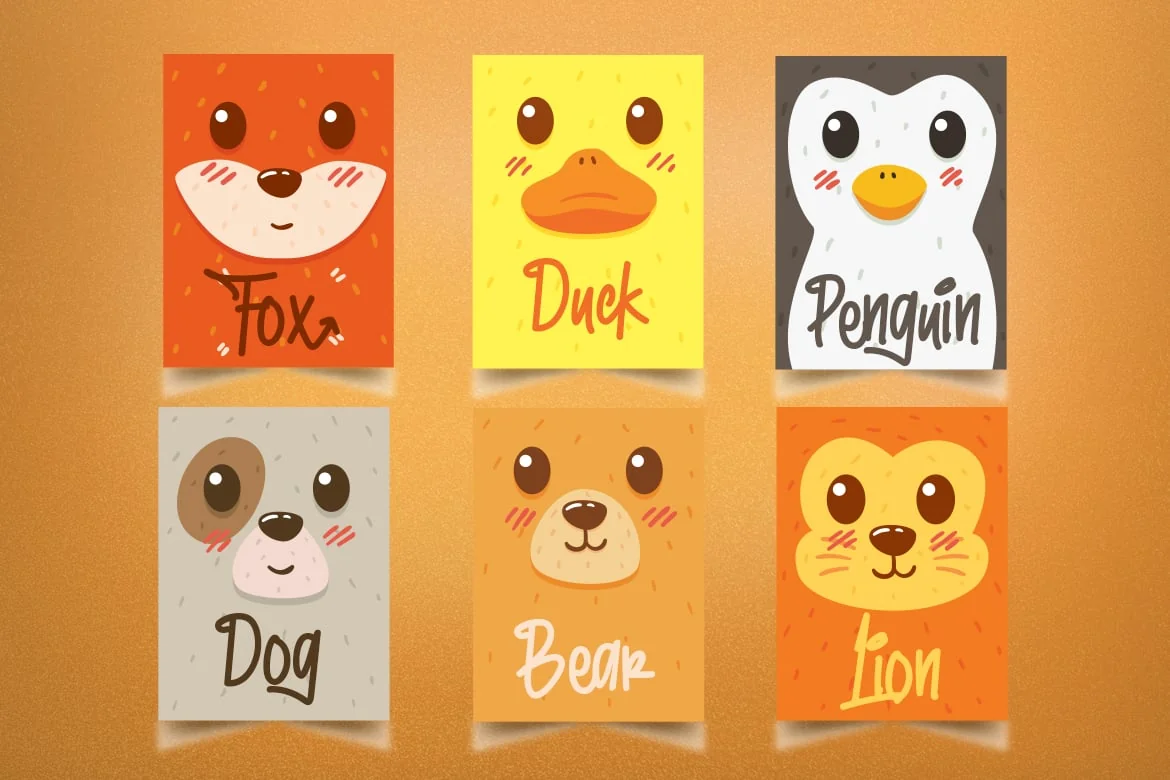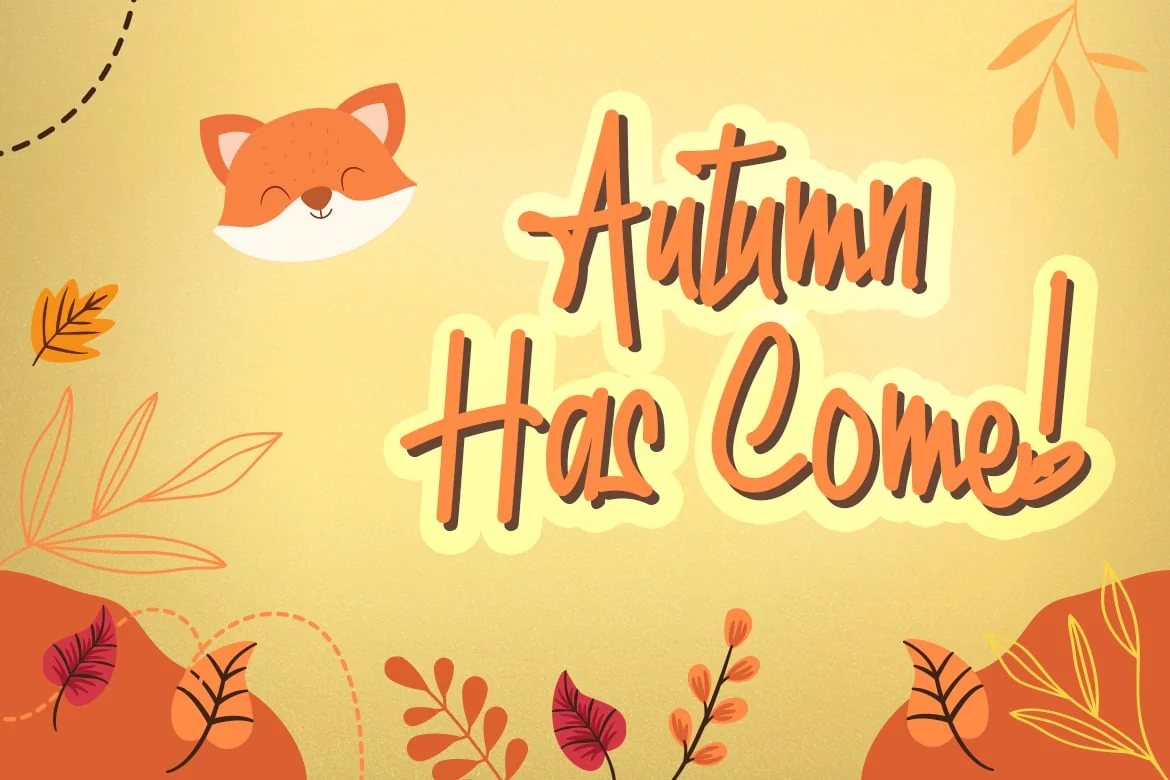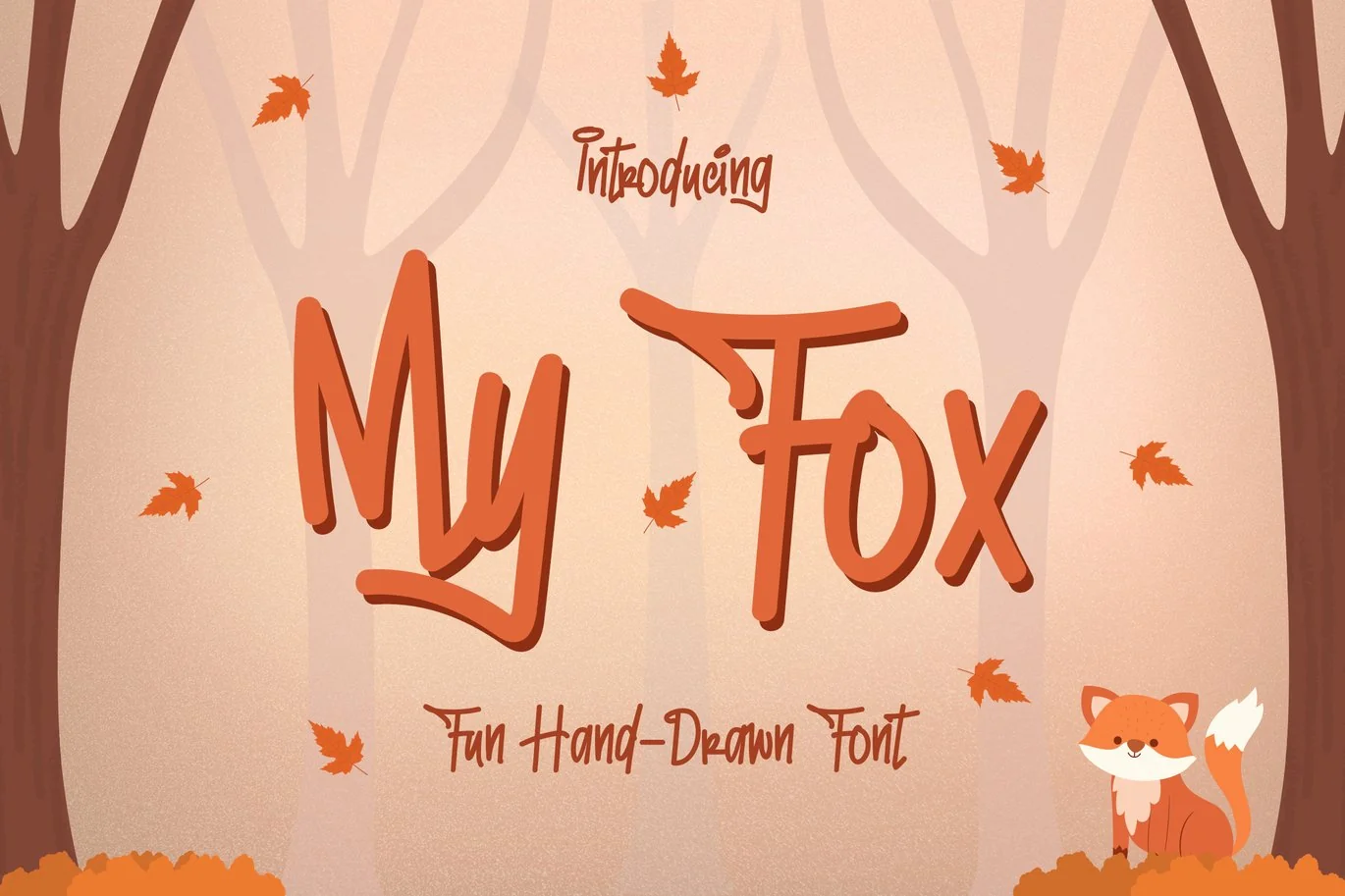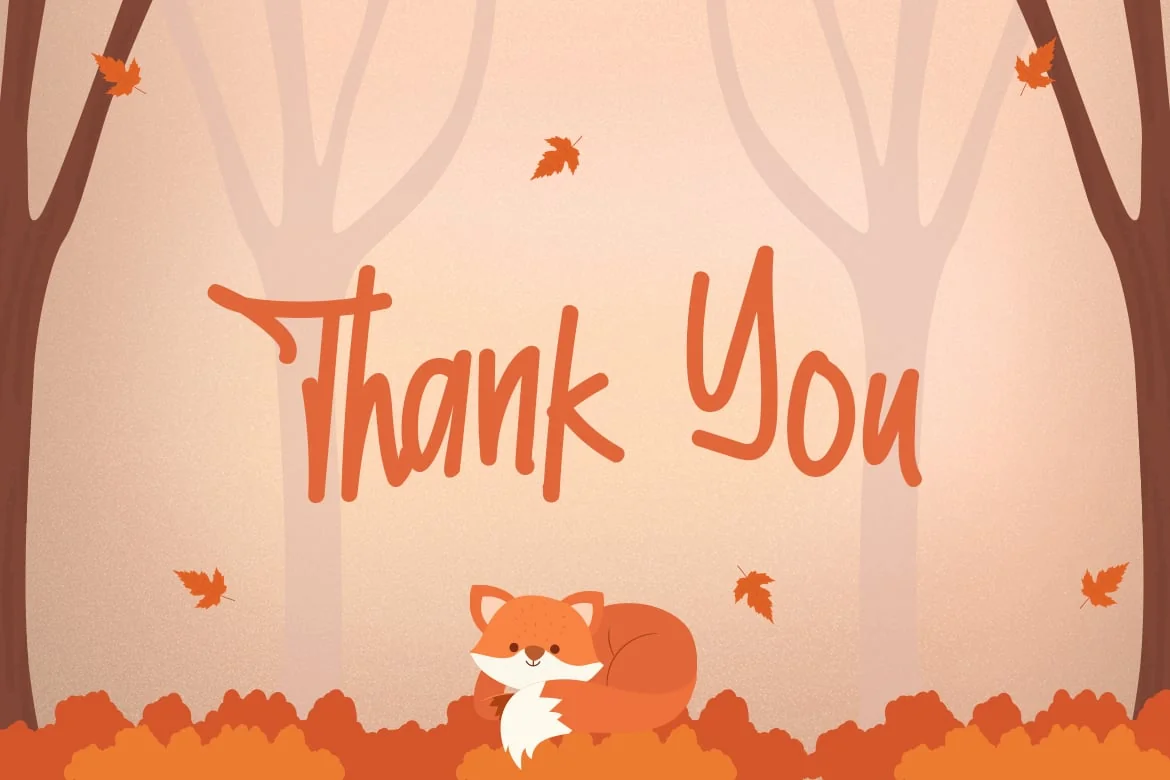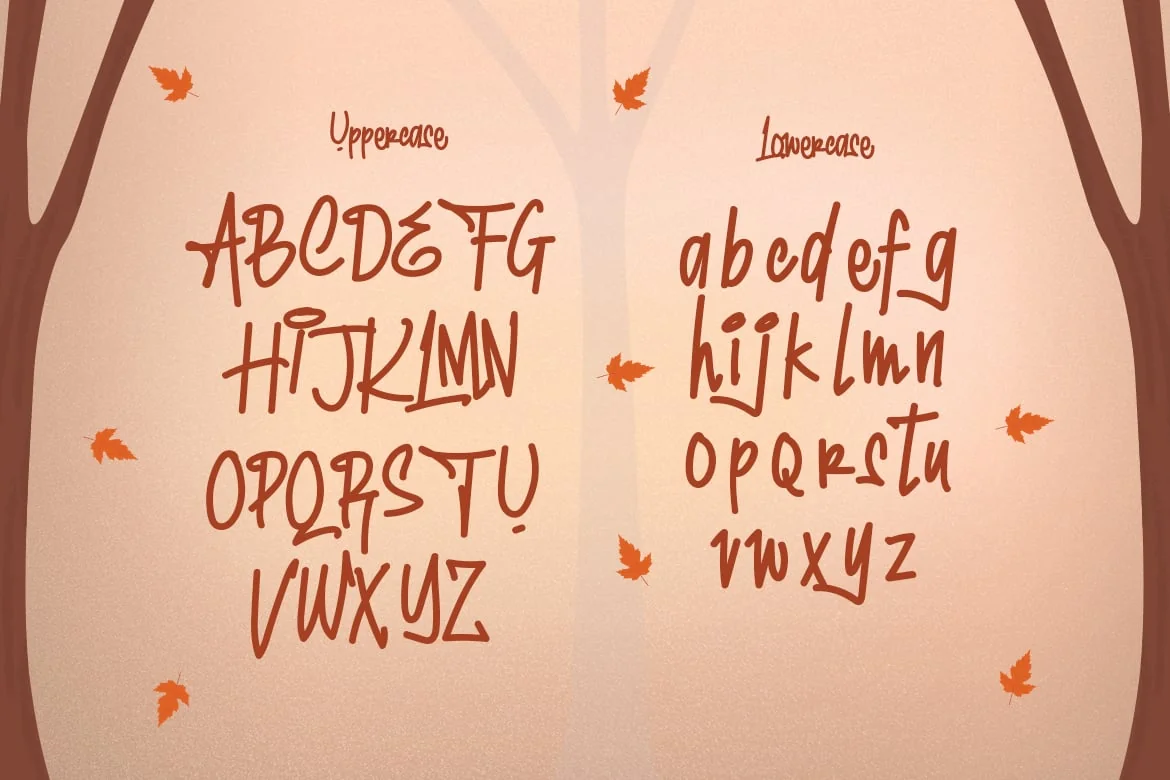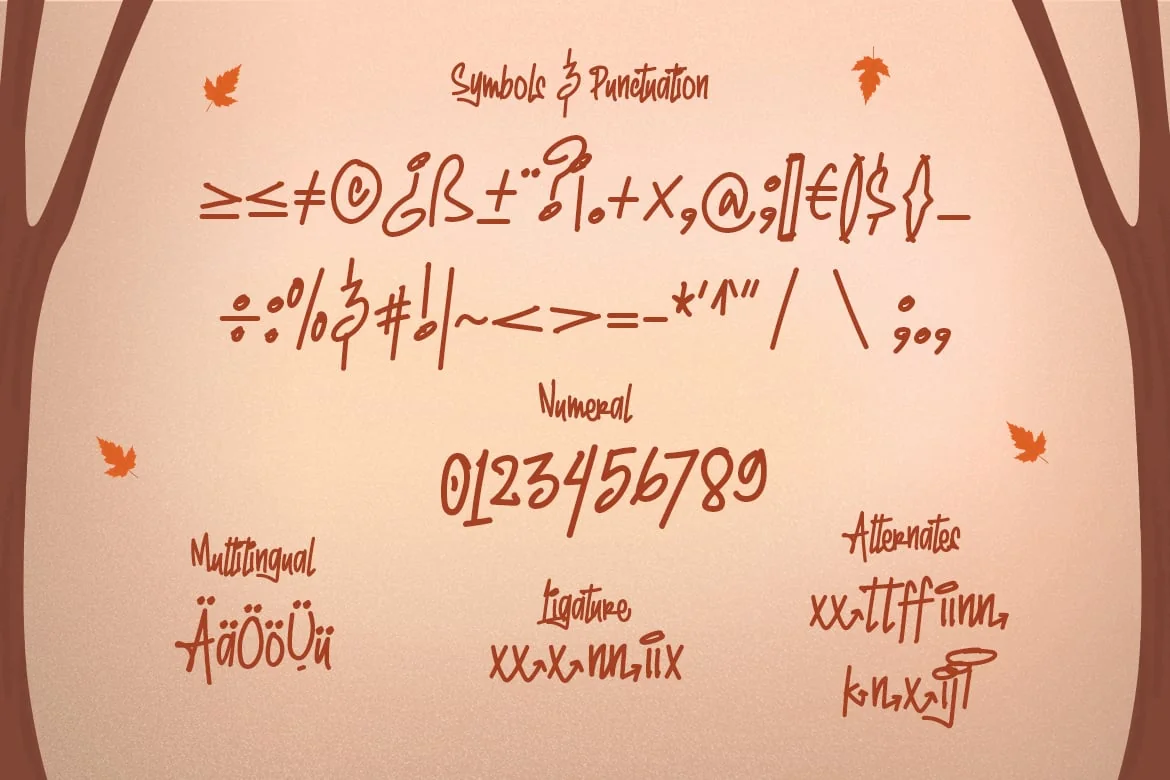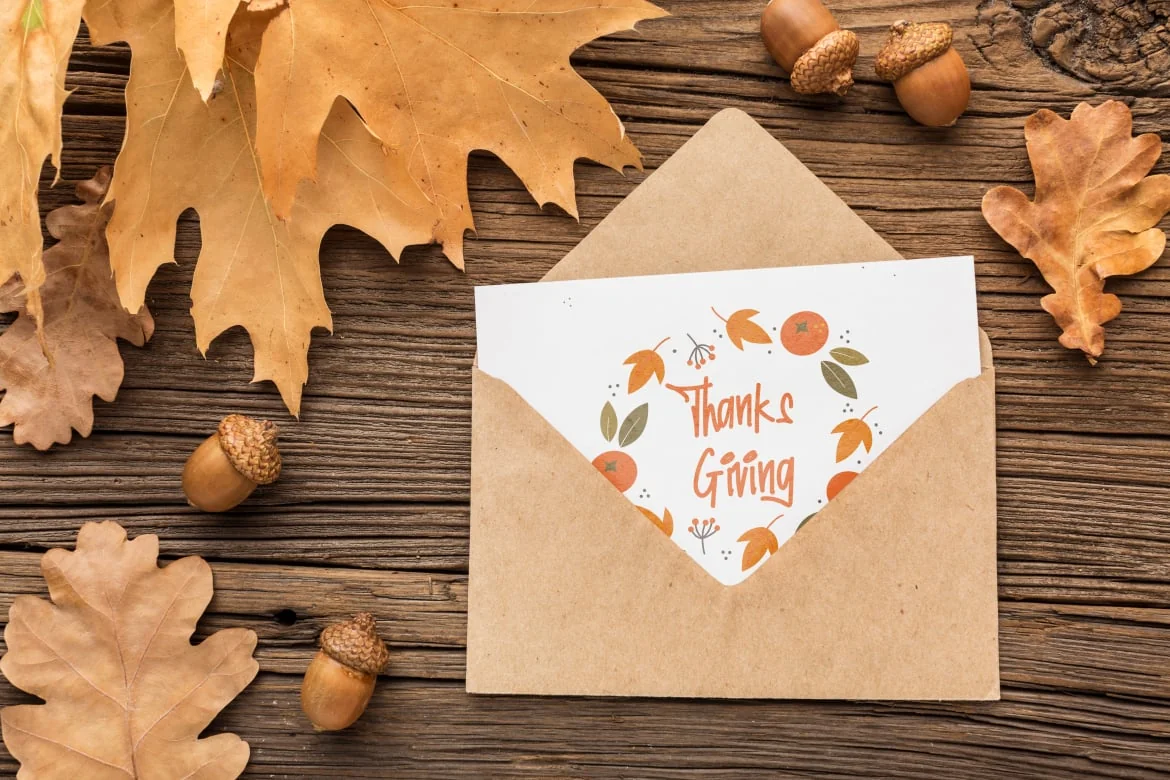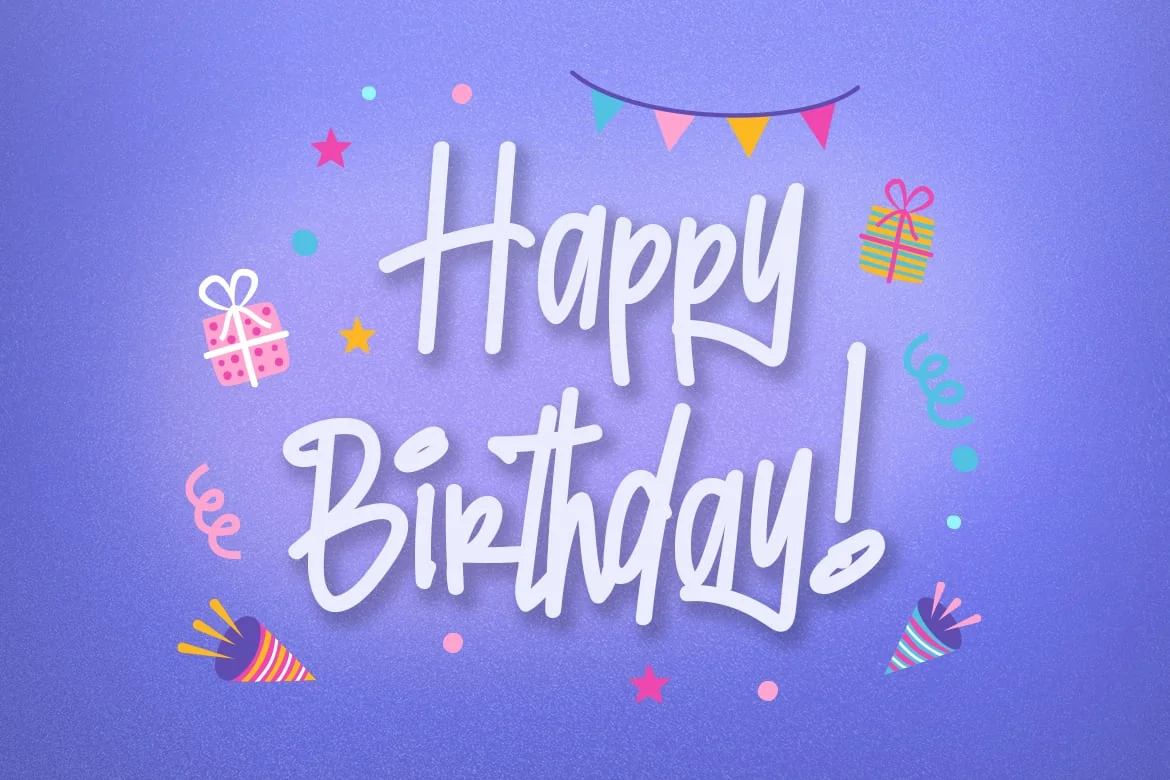
My Fox – Fun and Playful Font
My Fox is a fun and playful display font with an adorable feel. It will turn any design project into a stand-out.
This cute font is really great for a birthday card, clothing, thanksgiving gift card, quotes, headings, birthday invitations, posters, and many others.